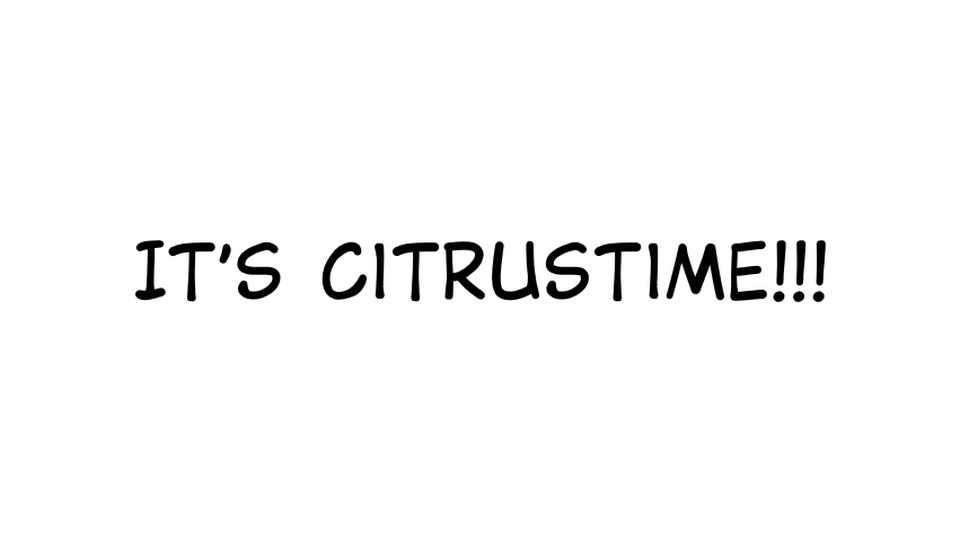
Download Citrustime font, a comic-style hand lettered typeface. A distinctive quality of this style is irregular stroke weight, which tried to replicate. This is also why Citrustime is an all-caps font; normal comic book lettering is always all-caps.
Designer: Alexander Nadeau